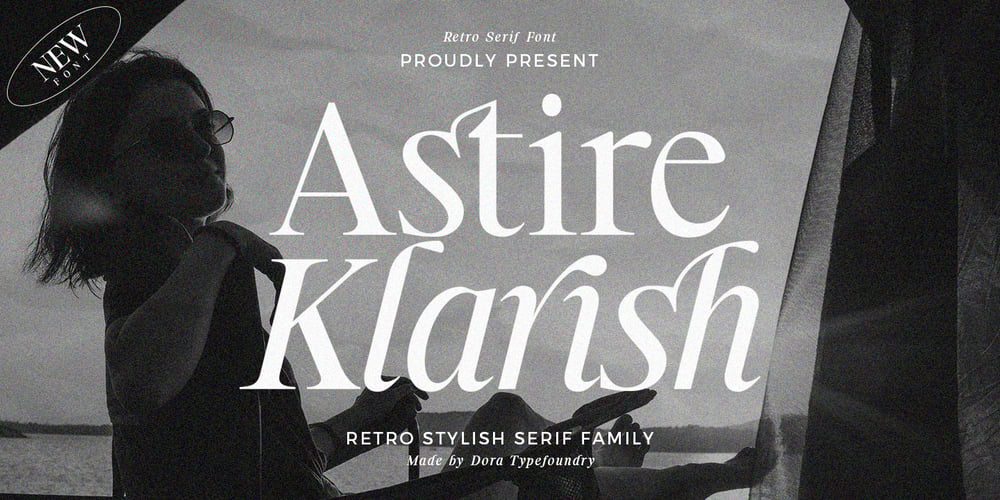
Astire Klarish Font Family was designed by Zahratul Laila and published by Dora Typefoundry. Astire Klarish contains 4 styles and family package options. Introducing, Astire Klarish is a new retro serif with all clean and soft lines, tight curves, a combination of regular and italic versions adding to the appeal and trendy elegant look!This serif typeface that looks amazing in both large and small settings is perfect for your design needs yet still clean and elegant to apply to a variety of other formal forms such as invitations, labels, logos, magazines, books, greeting/wedding cards, packaging. , fashion, make up, stationery, novel, label or any kind of advertising purposes.WHAT YOU GET : Astire Klarish Regular (Open type) Astire Klarish Italic (Open type) Astire Klarish Bold (Open type) Astire Klarish Bold Italic (Open type) This type of family has become the work of true love, making it as easy and fun as possible. I really hope you enjoy it!Thank you.